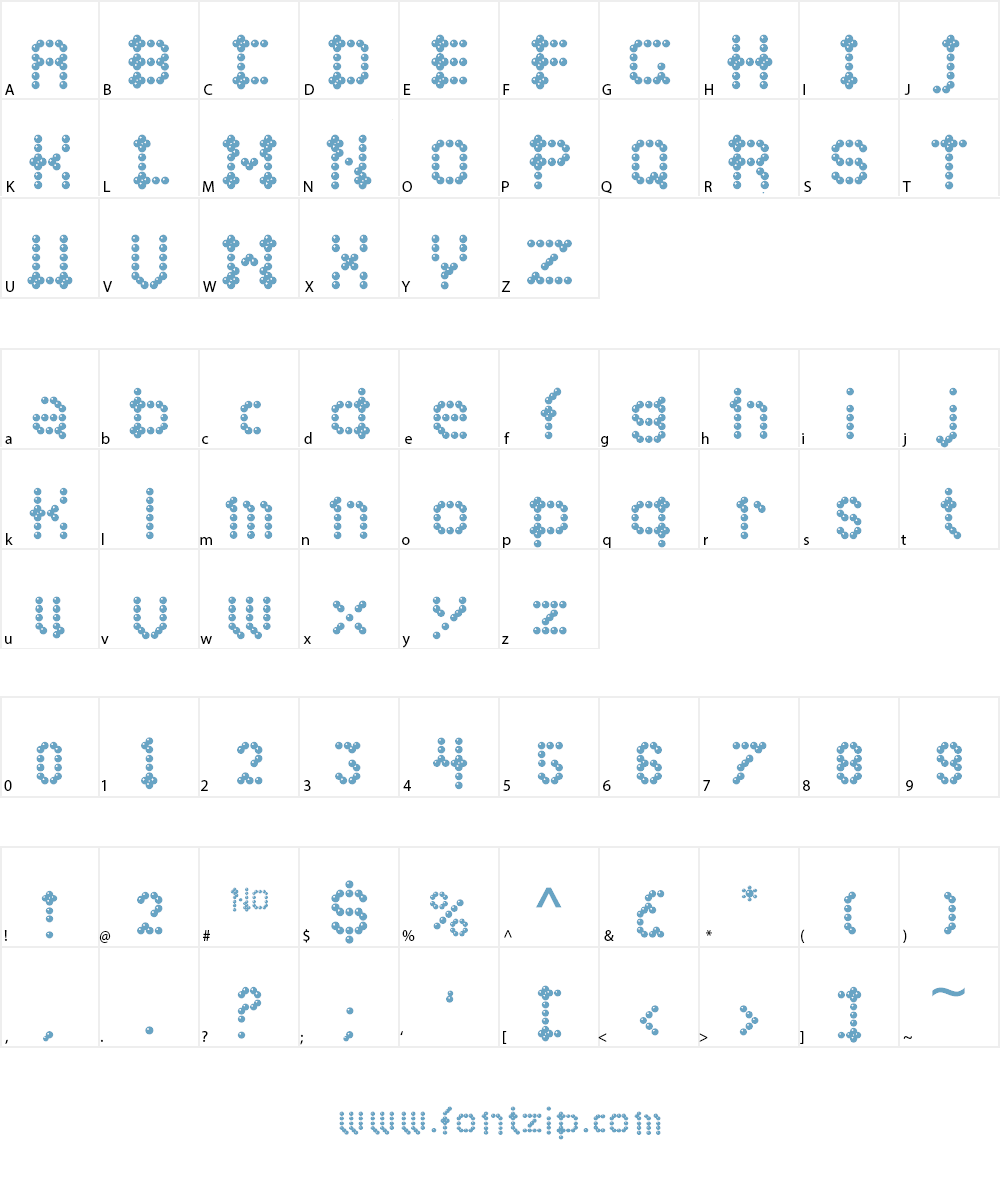
Remember those plastic Popsicle sticks that clicked together and you could make things from them with your sticky little fingers? Things like... camp crafts. Well, no… Of course you don't. You were too young. That's why there is Campcraft.
This is a fun loving dot matrix font, or it would be a fun loving dot matrix if the vertical and horizontal grid lines didn't pile up at the intersections. Then again, it wouldn't be any fun if they didn't pile up at the intersections, would it?